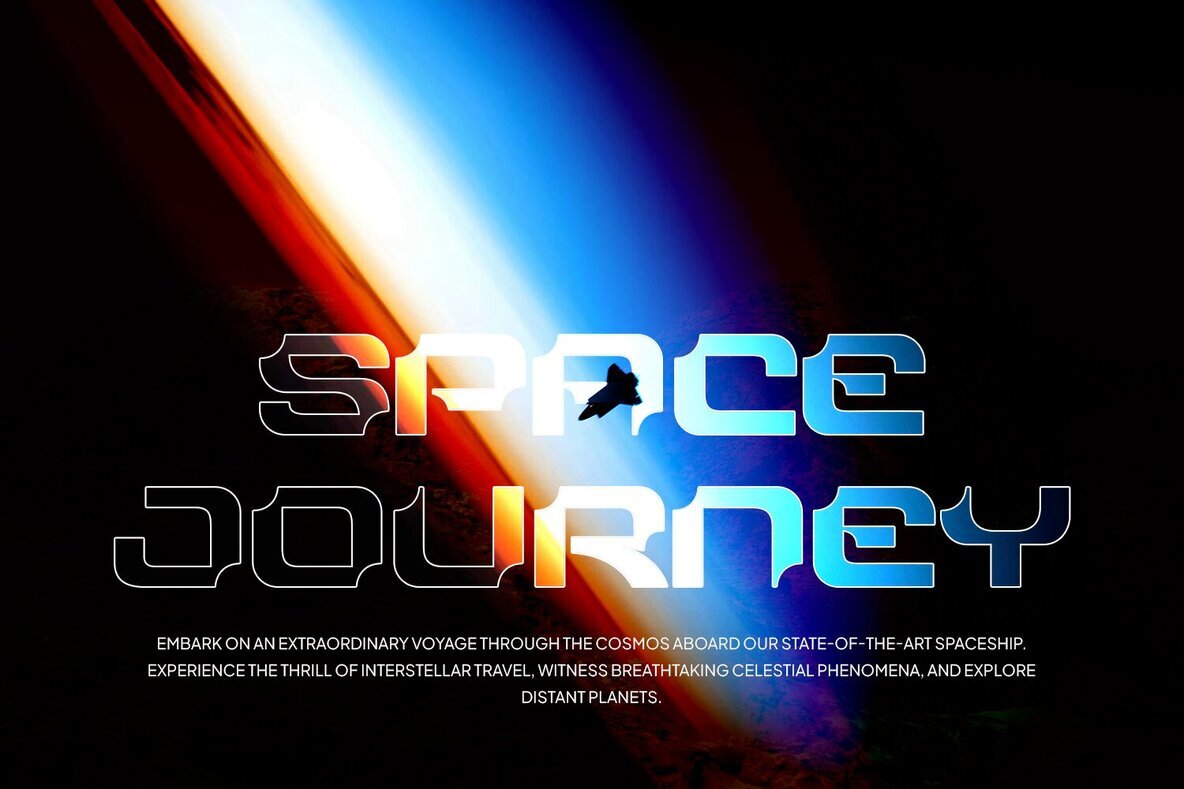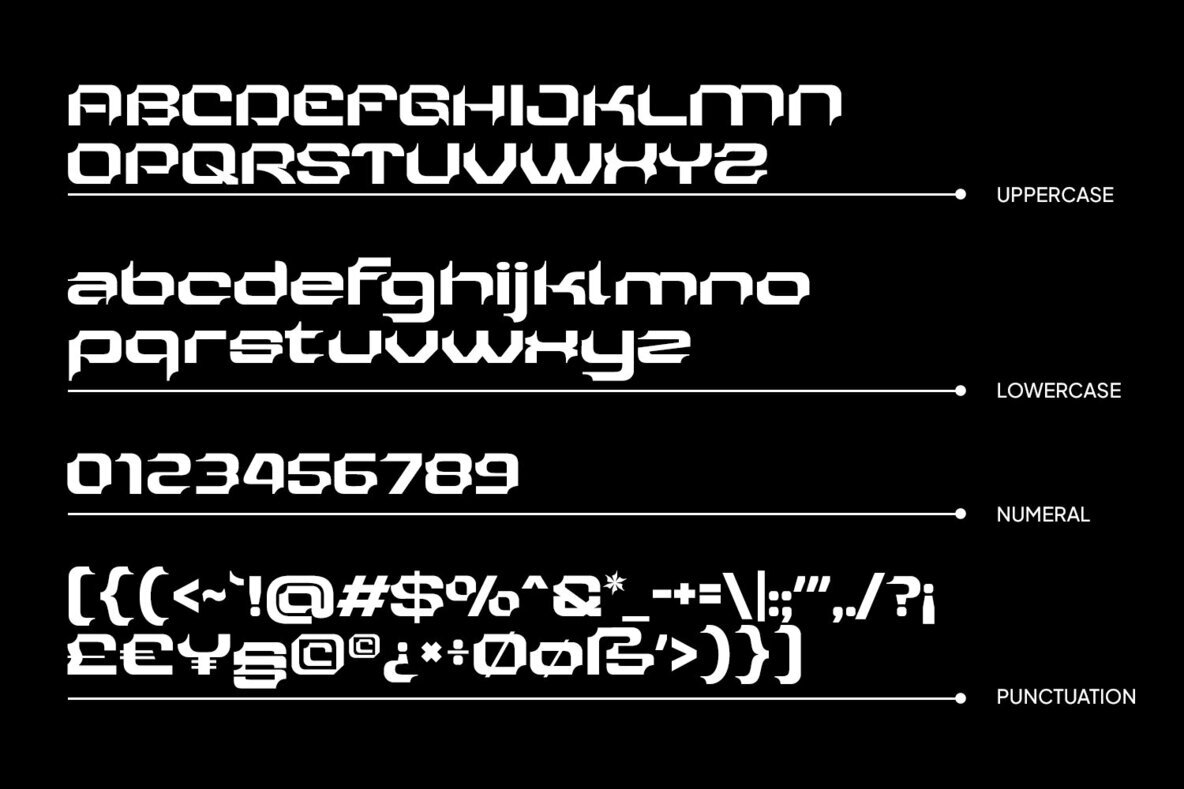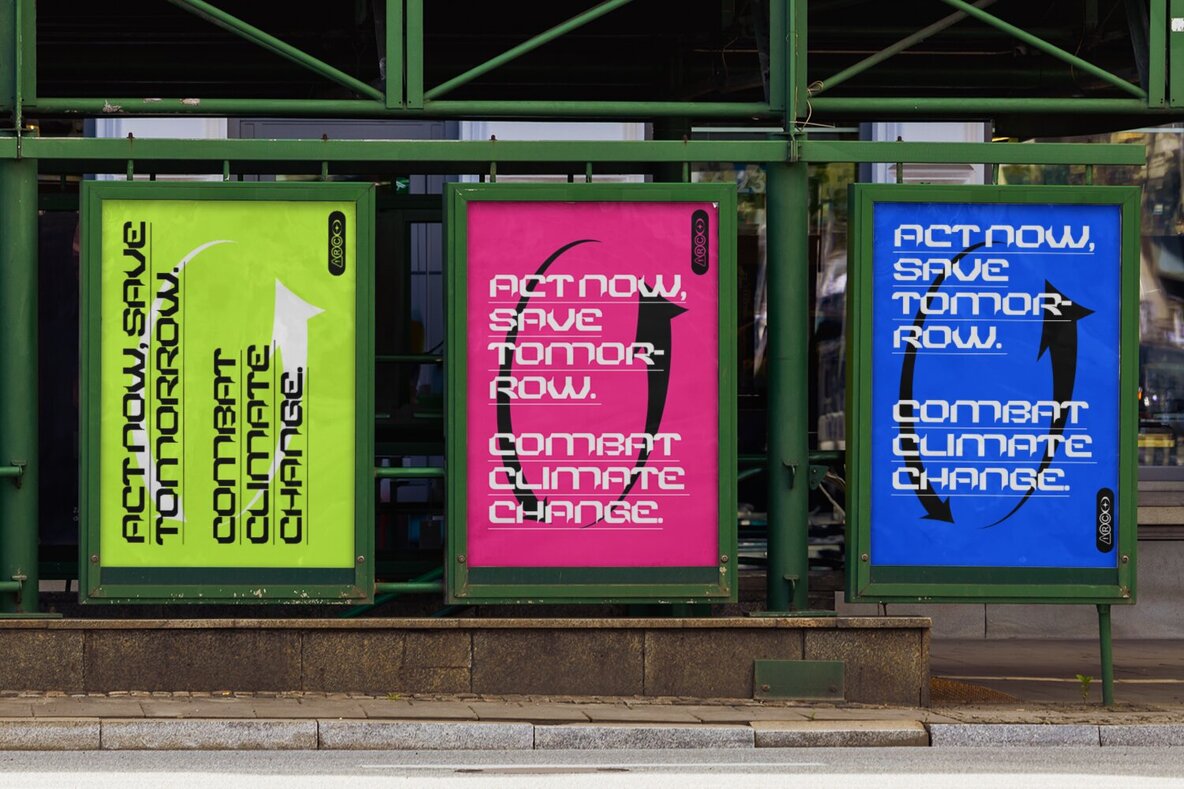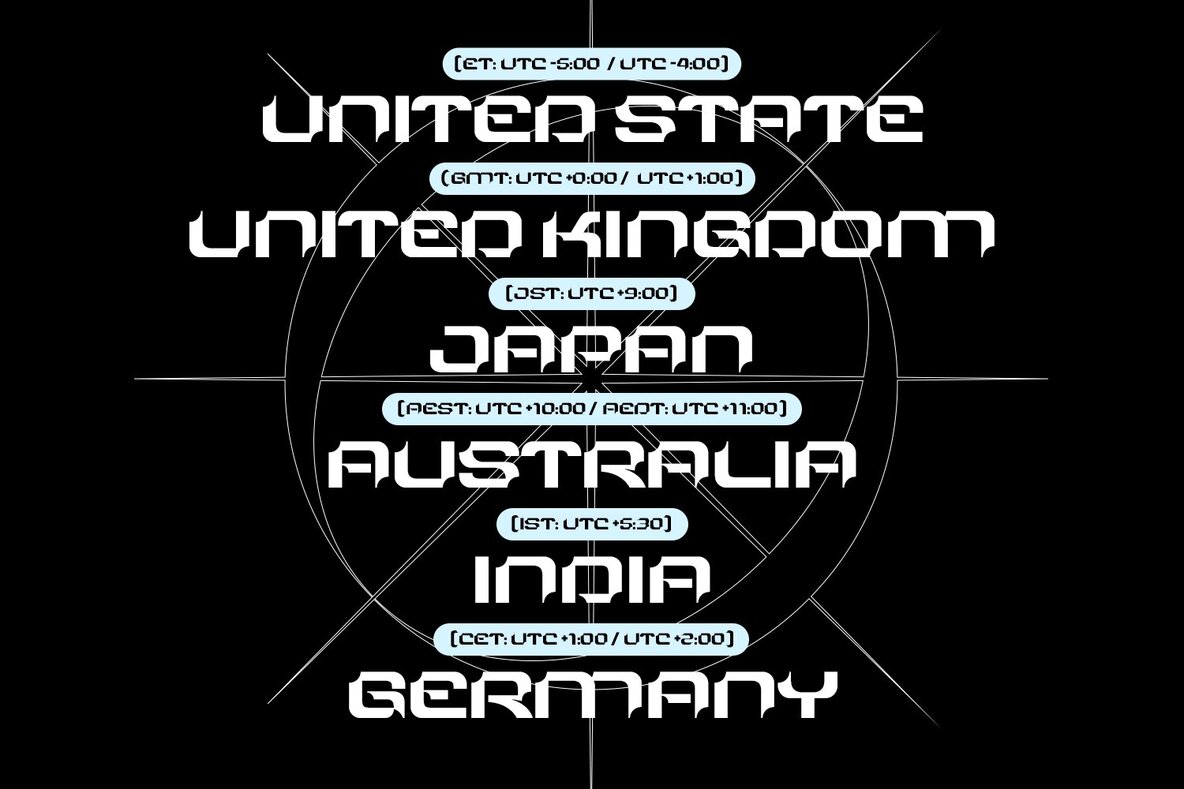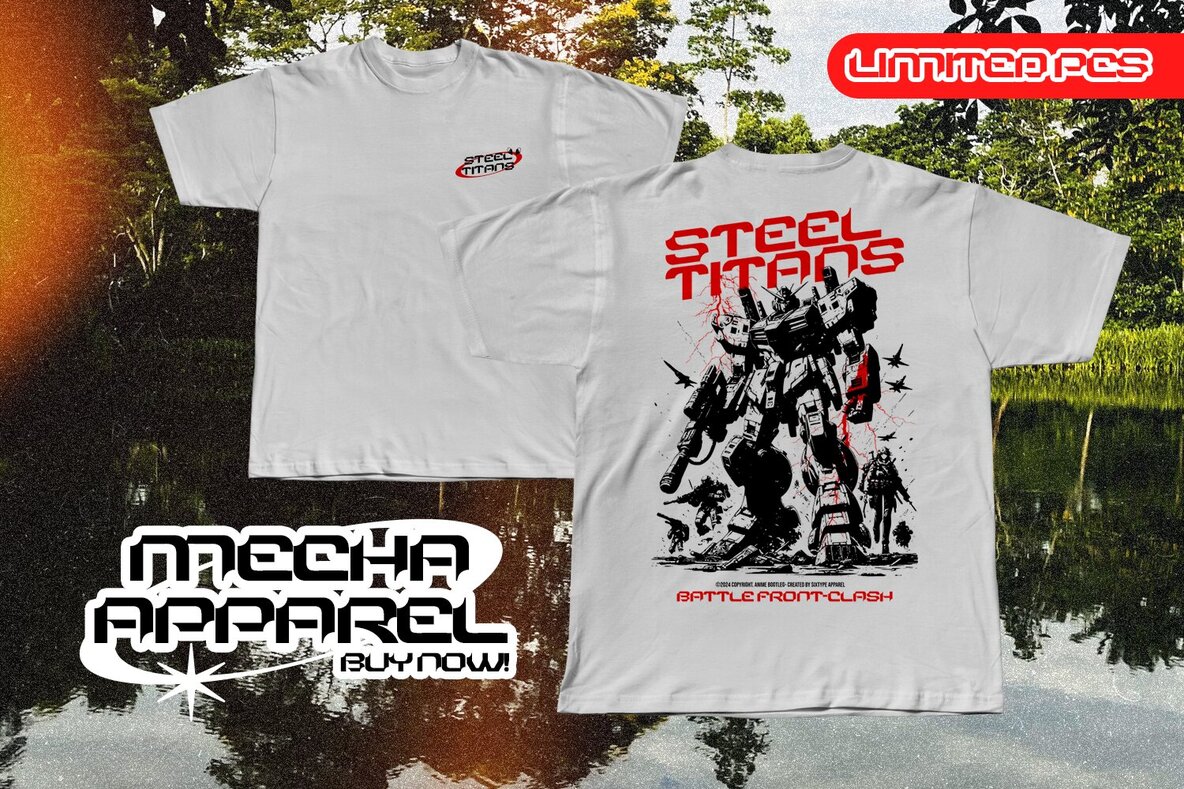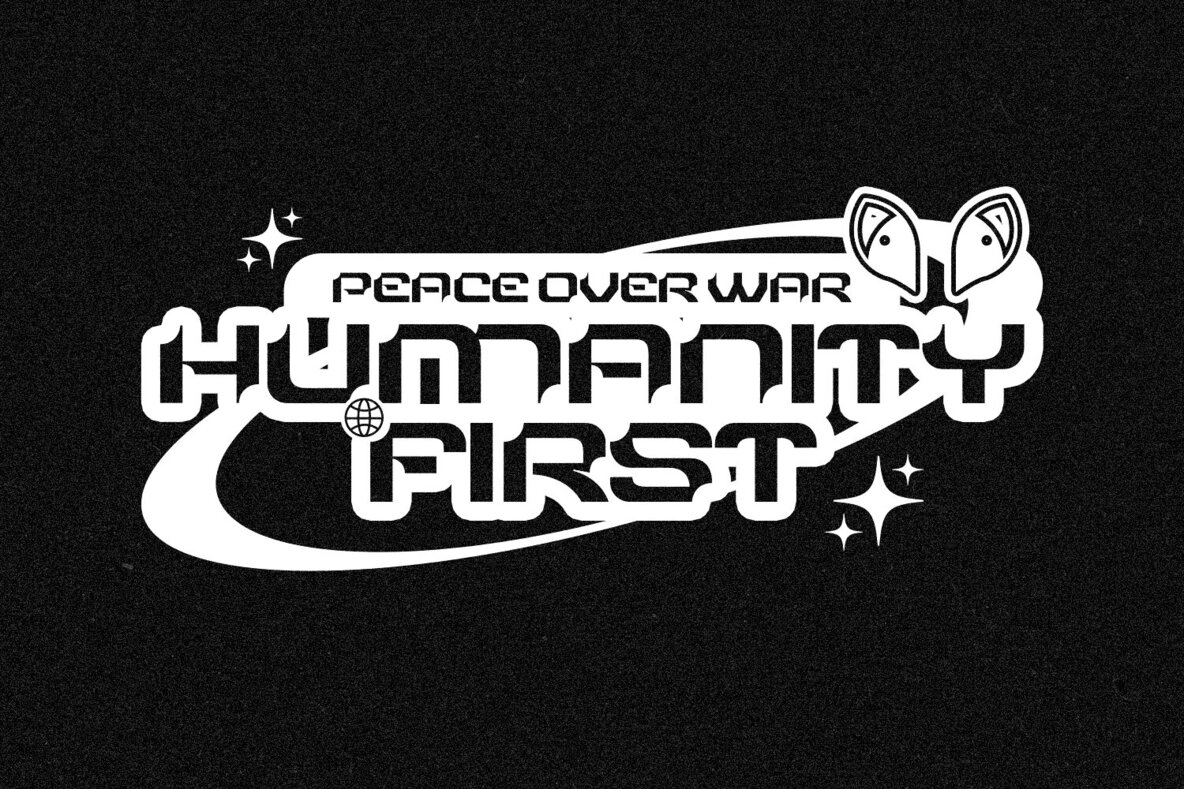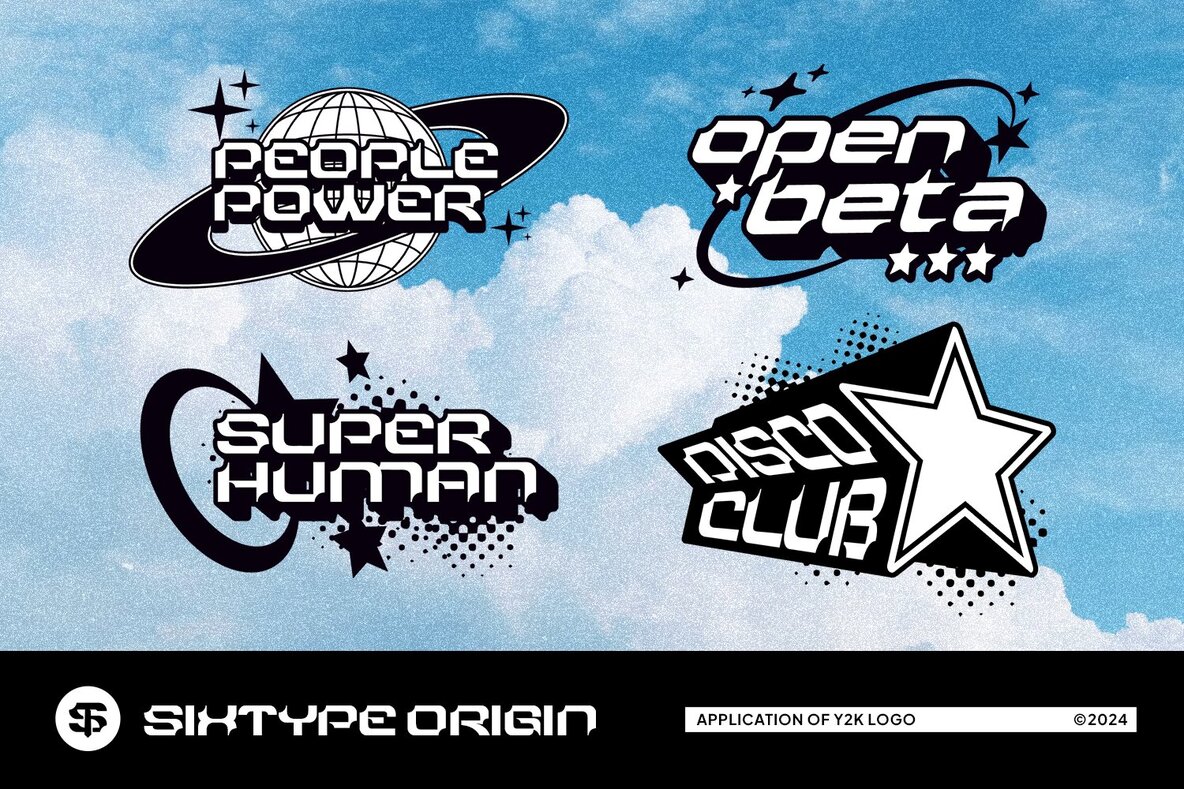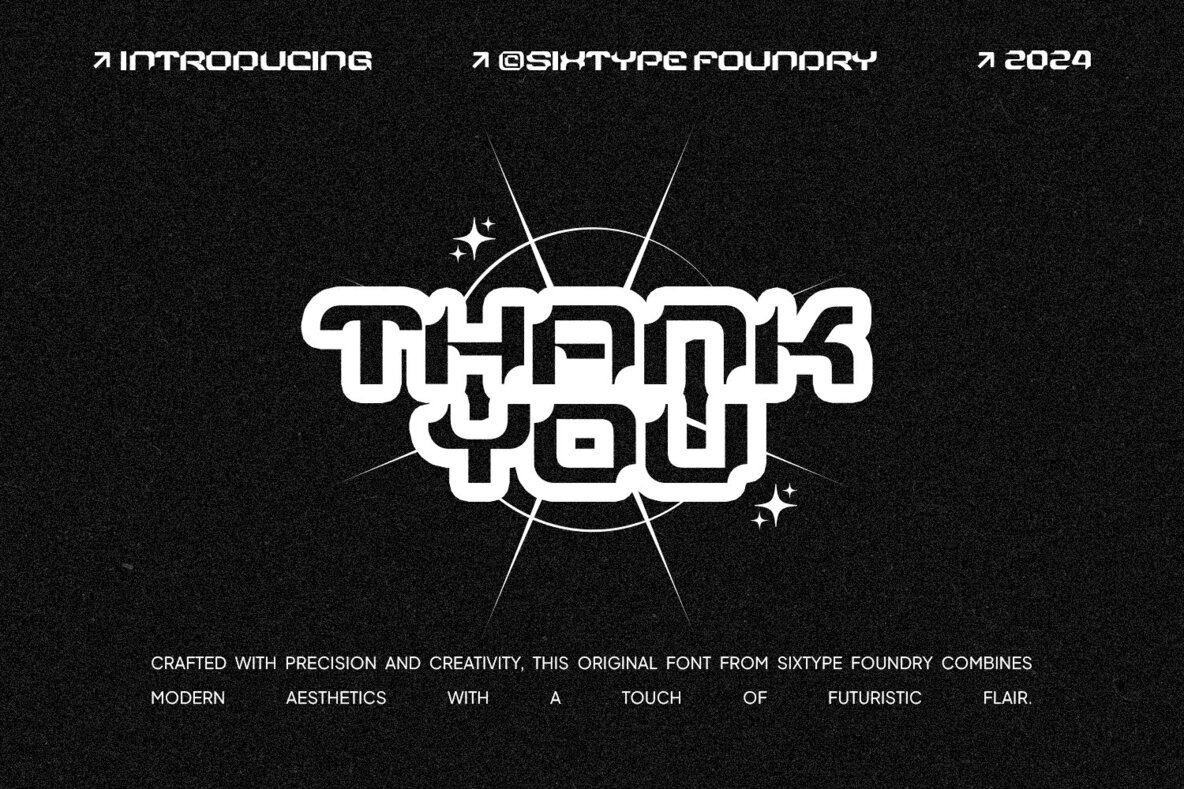
Sixtype Origin Font
Sixtype Origin Regular
Crafted with precision and creativity, this original font from Sixtype Foundry combines modern aesthetics with a touch of futuristic flair. The geometric shapes and clean lines offer a perfect balance of form and function, making it ideal for logos, headlines, and other prominent design elements. The distinctive character of Sixtype Origin sets it apart, providing a fresh and innovative look that captures attention and leaves a lasting impression. File Includes: Note: Kindly be informed that the images and photographs within the model are for presentation purposes only and are not included in the download file. Thanks for your cooperation, and enjoy!